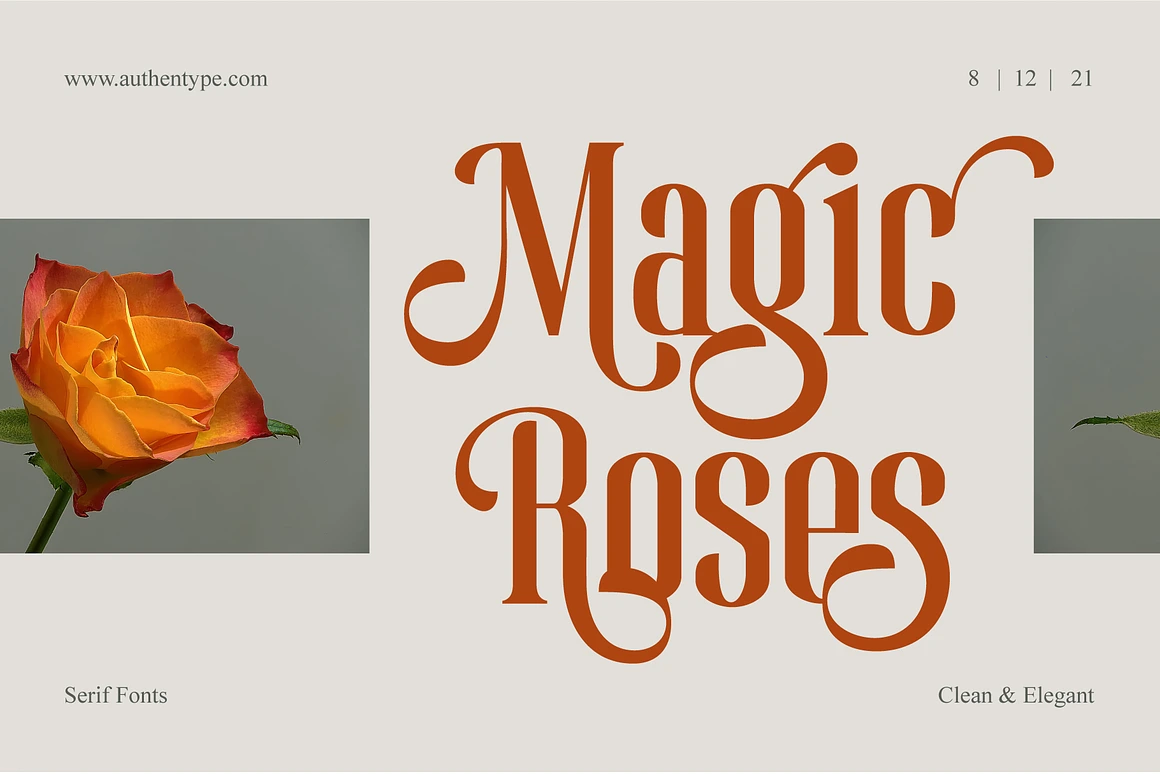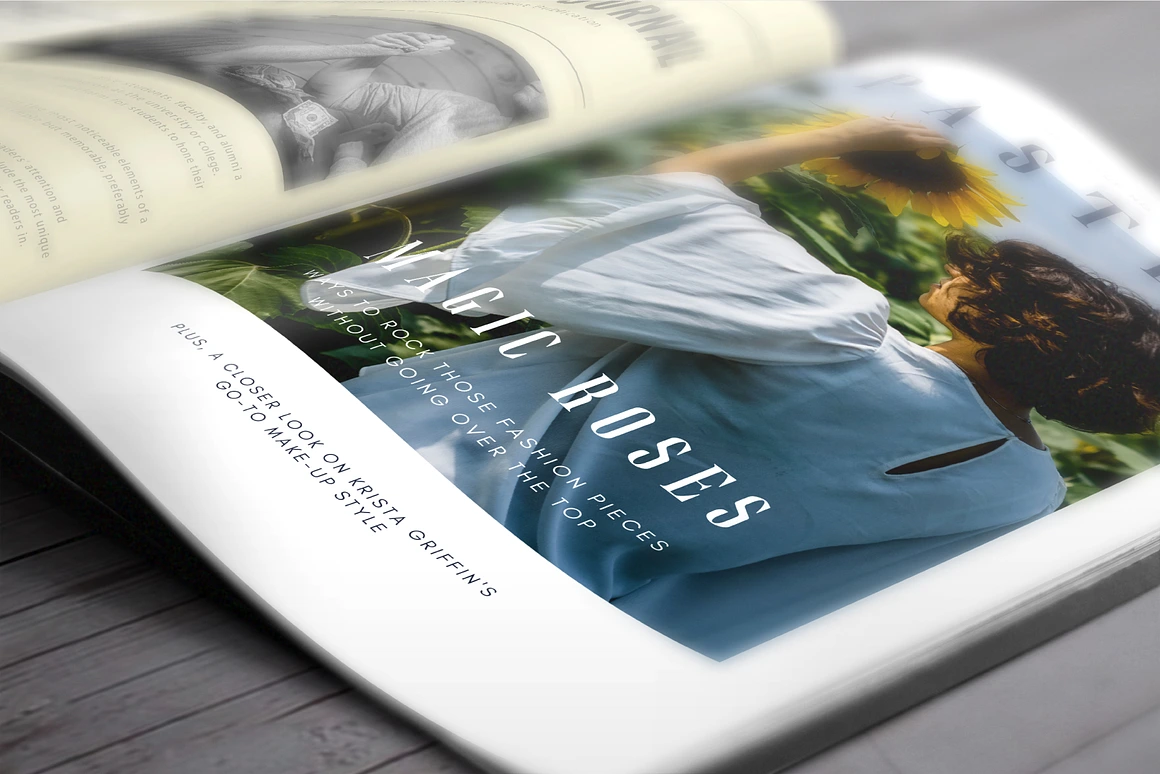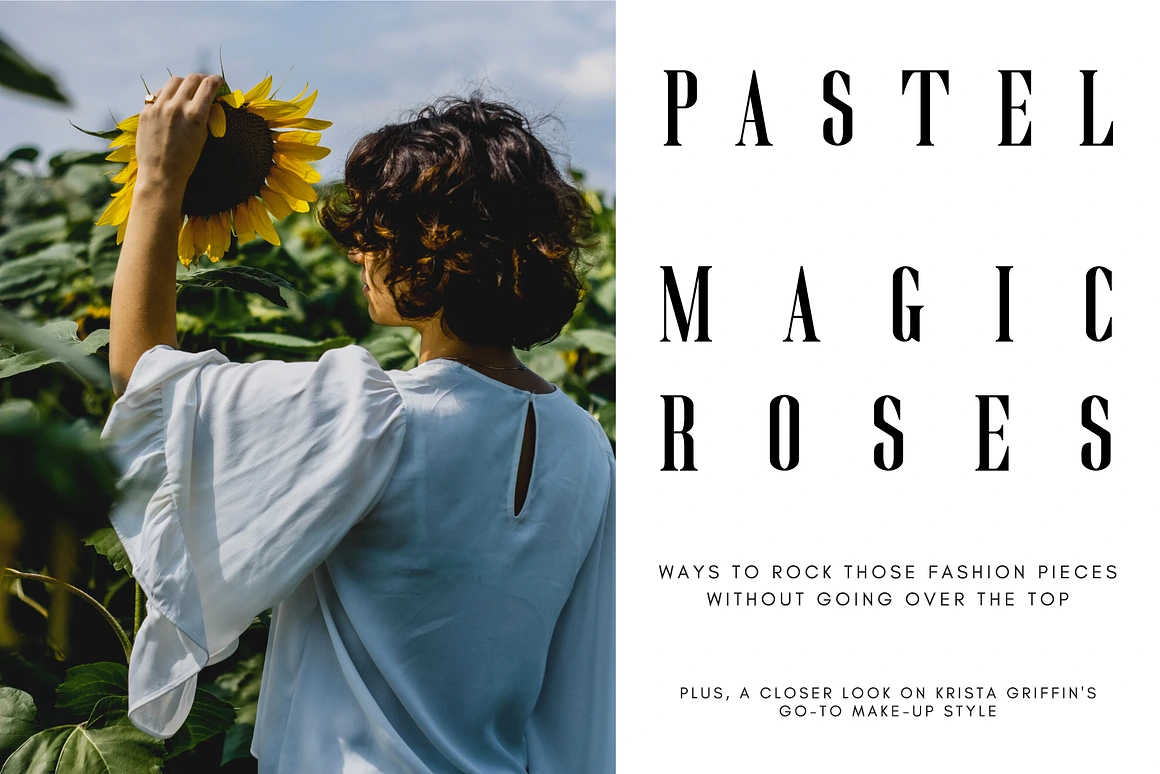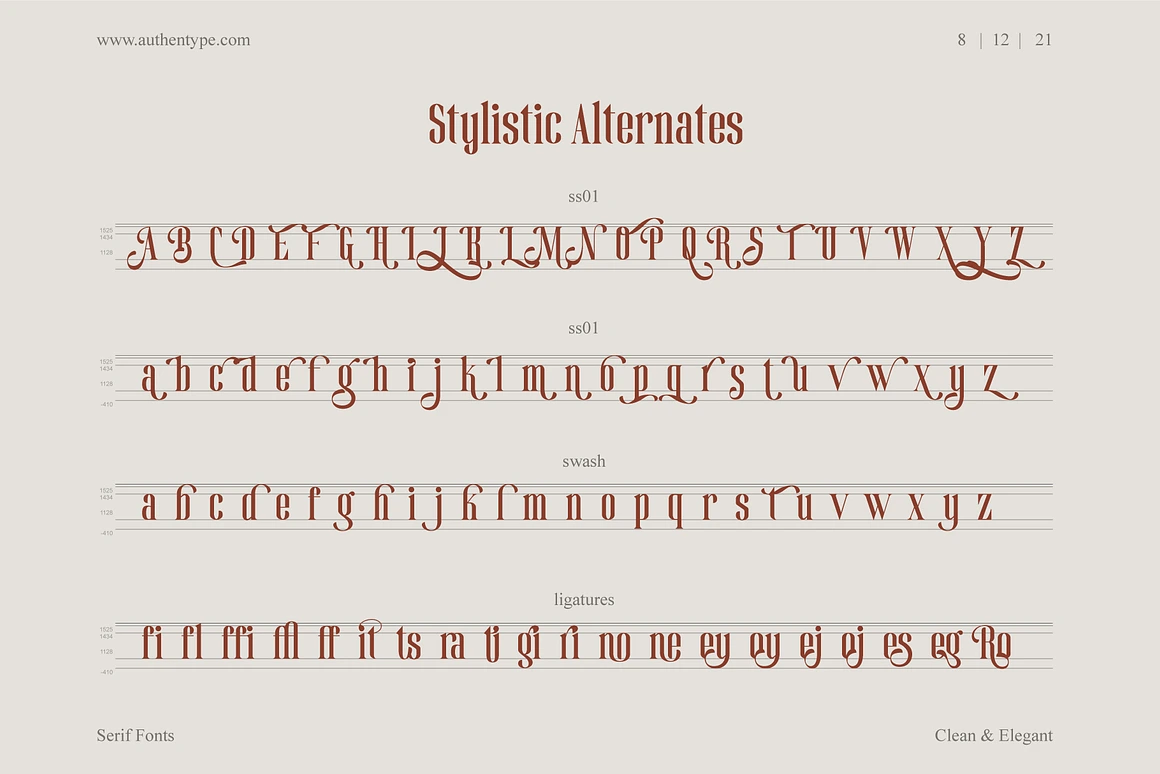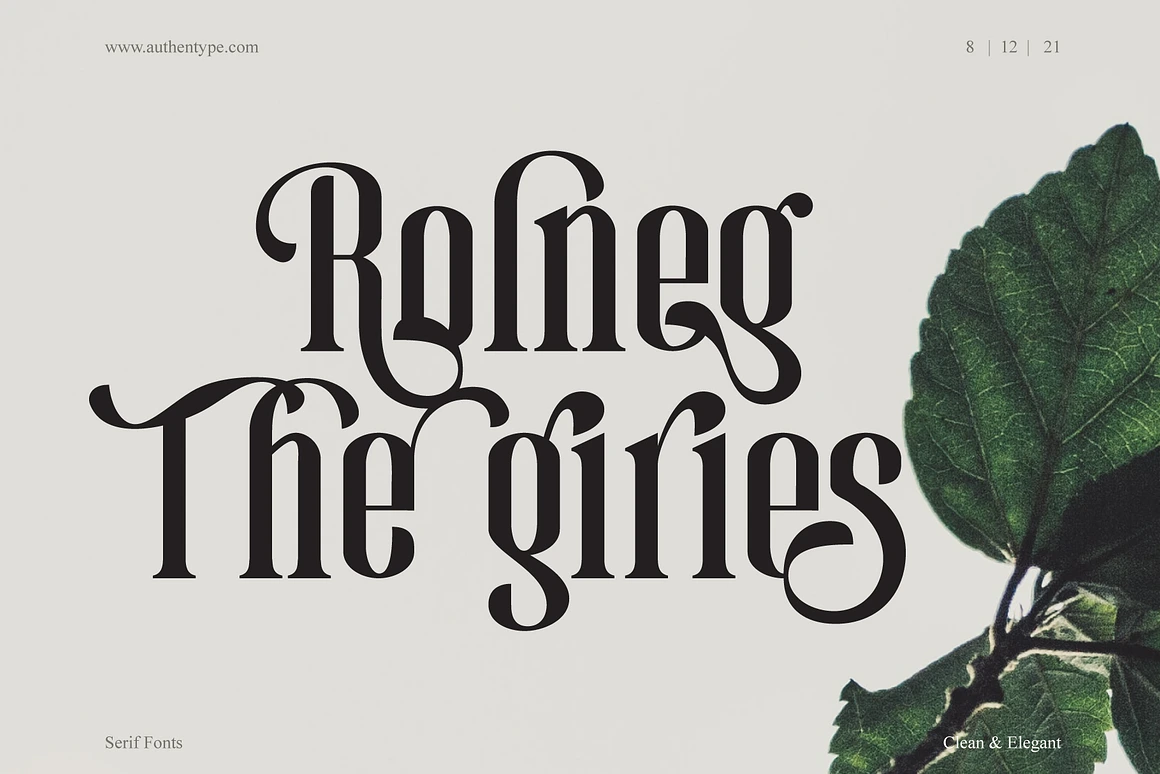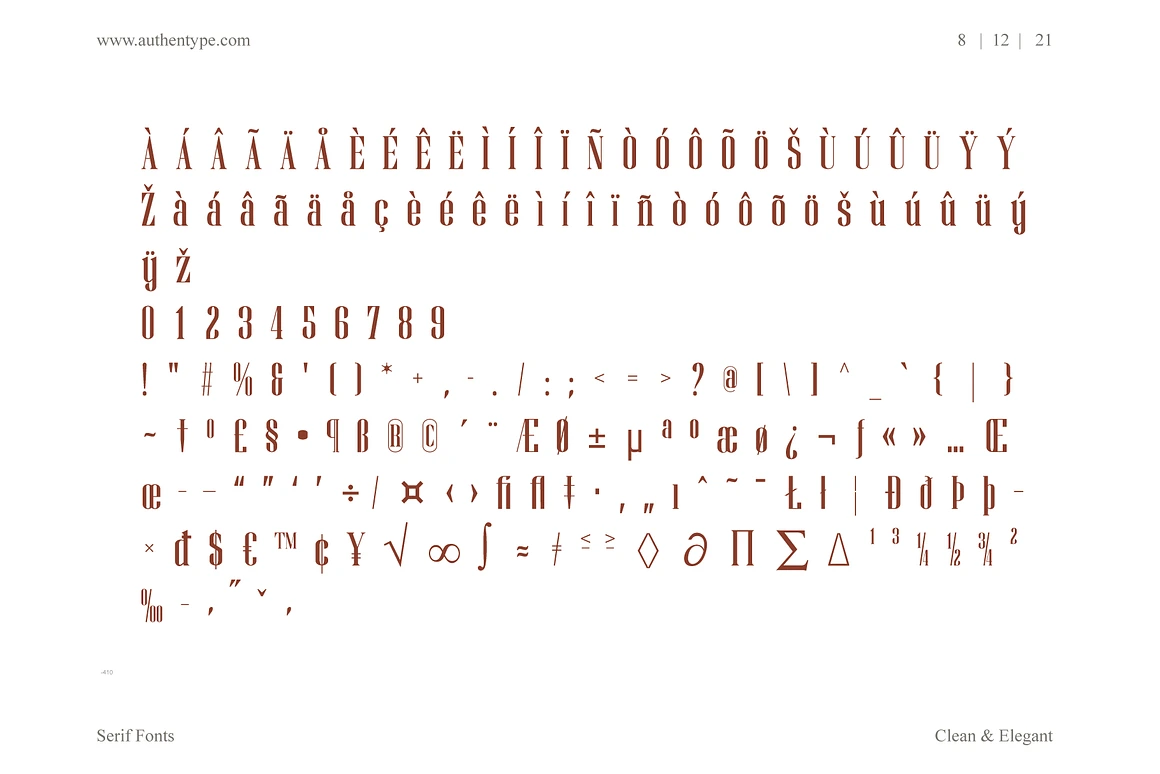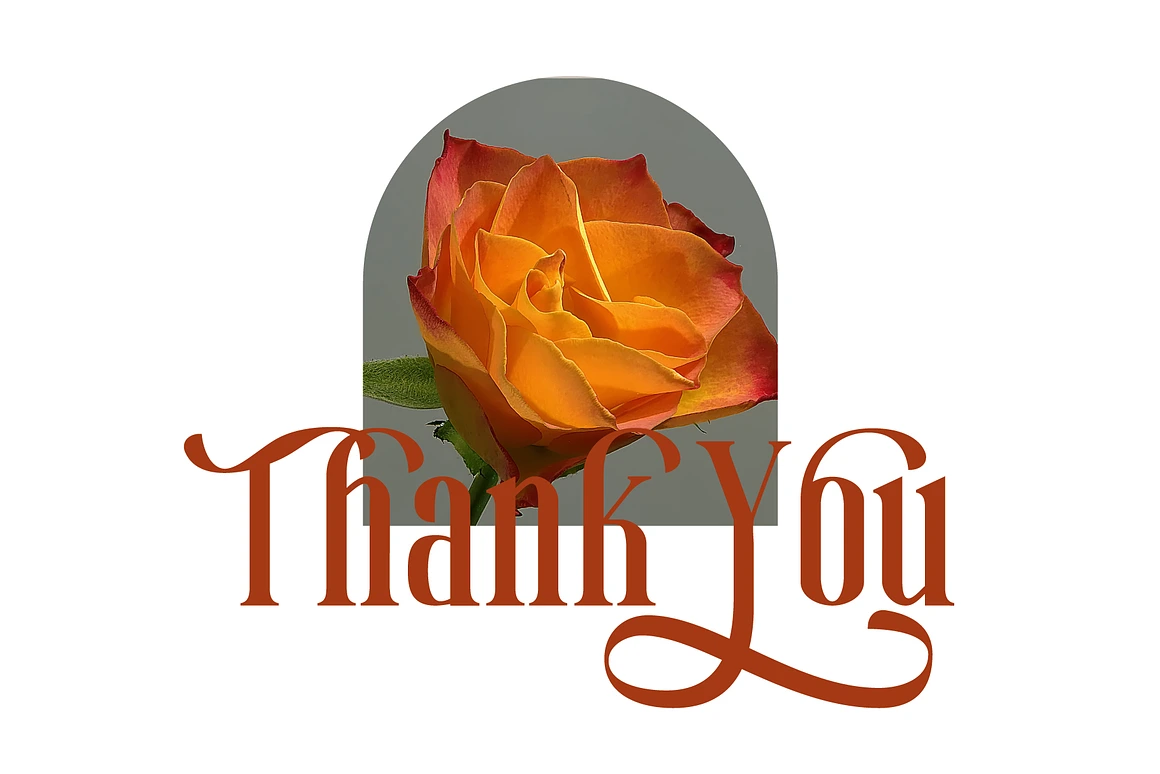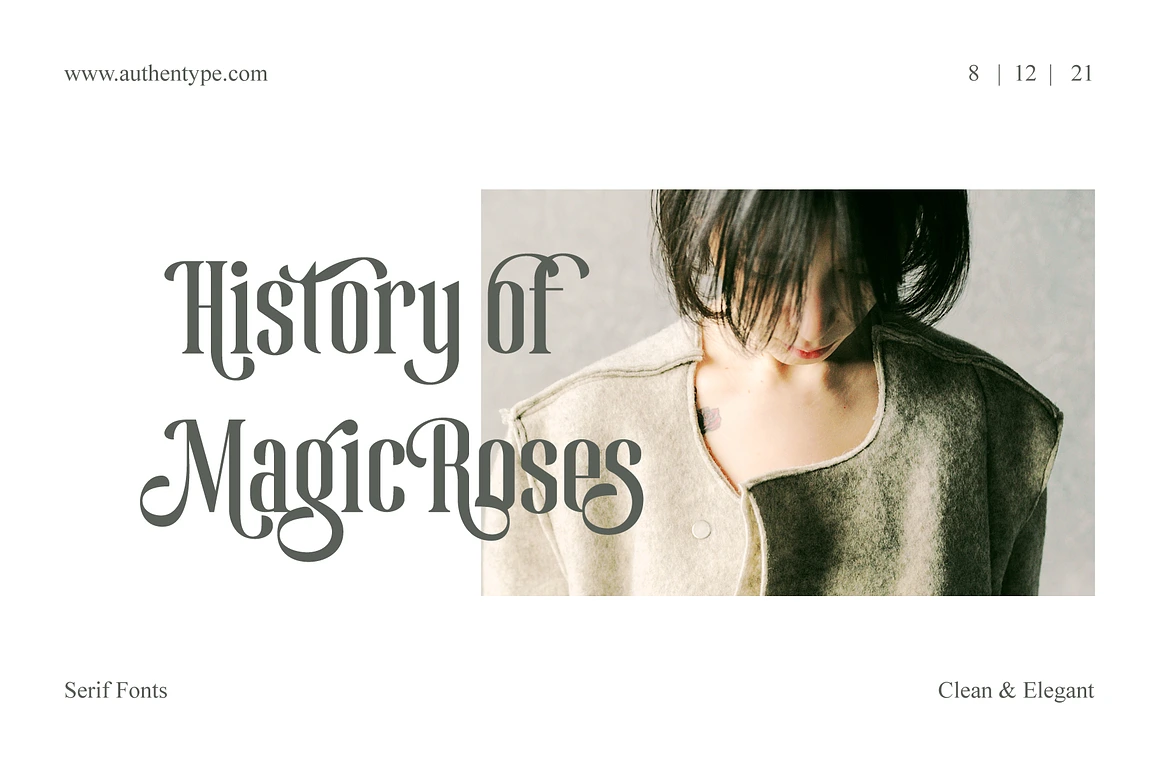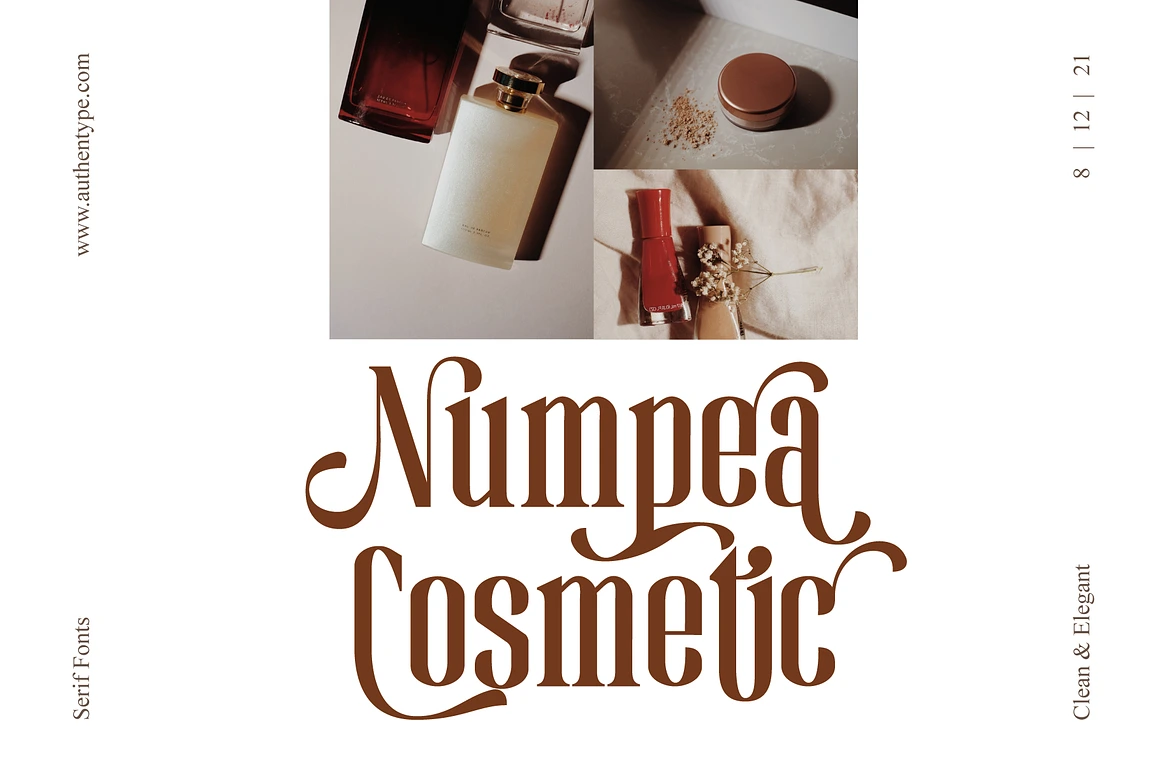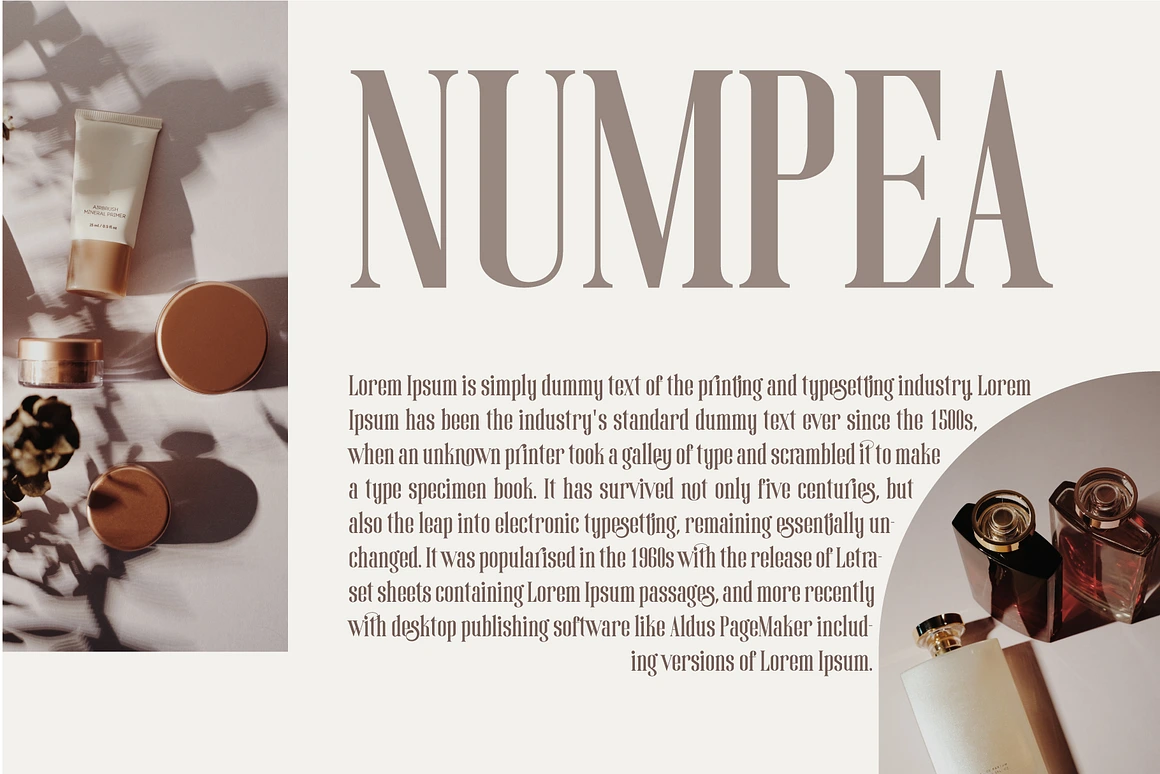
Magic Roses – Serif Clean Elegant Typeface
Magic Roses is a Serif Clean Elegant font designed to bring sophistication, clarity, and timeless style to your creative projects. Its smooth curves, balanced proportions, and refined details make it a versatile choice for designers who want to combine modern simplicity with classic elegance.
Crafted with discretionary ligatures that give each word a unique visual character, Magic Roses ensures that no two words look exactly alike. The font also features elegant swashes with contrasting strokes, adding a graceful touch to headlines, logos, and branding materials.
Whether you’re creating a luxury brand identity, editorial layout, wedding invitation, or high-end packaging, this Serif Clean Elegant font adapts beautifully to both print and digital designs.
Why Choose Magic Roses – Serif Clean Elegant Typeface?
Premium Serif Clean Elegant Style – Perfect for luxury, editorial, and branding projects.
Discretionary Ligatures – Create unique word shapes for a more refined and custom look.
Elegant Swashes – Add a graceful, decorative flourish to your designs.
High Readability – Clear letterforms ensure beauty and legibility in all sizes.
Standard Glyphs – Uppercase & lowercase letters
Numerals & Punctuation – Wide range for versatile use
Ligatures & Swashes – Stylistic elements for extra elegance
Multilingual Support – Covers ä, ö, ü, Ä, Ö, Ü, ß, ¿, ¡ and more
Perfect For:
Luxury brand logos
Wedding invitations & stationery
Editorial & magazine layouts
Product packaging & labels
Posters, flyers & promotional materials
Social media graphics with a high-end feel
With Magic Roses, you’re not just choosing a font—you’re choosing a design partner that brings timeless beauty, elegance, and professional polish to every project.